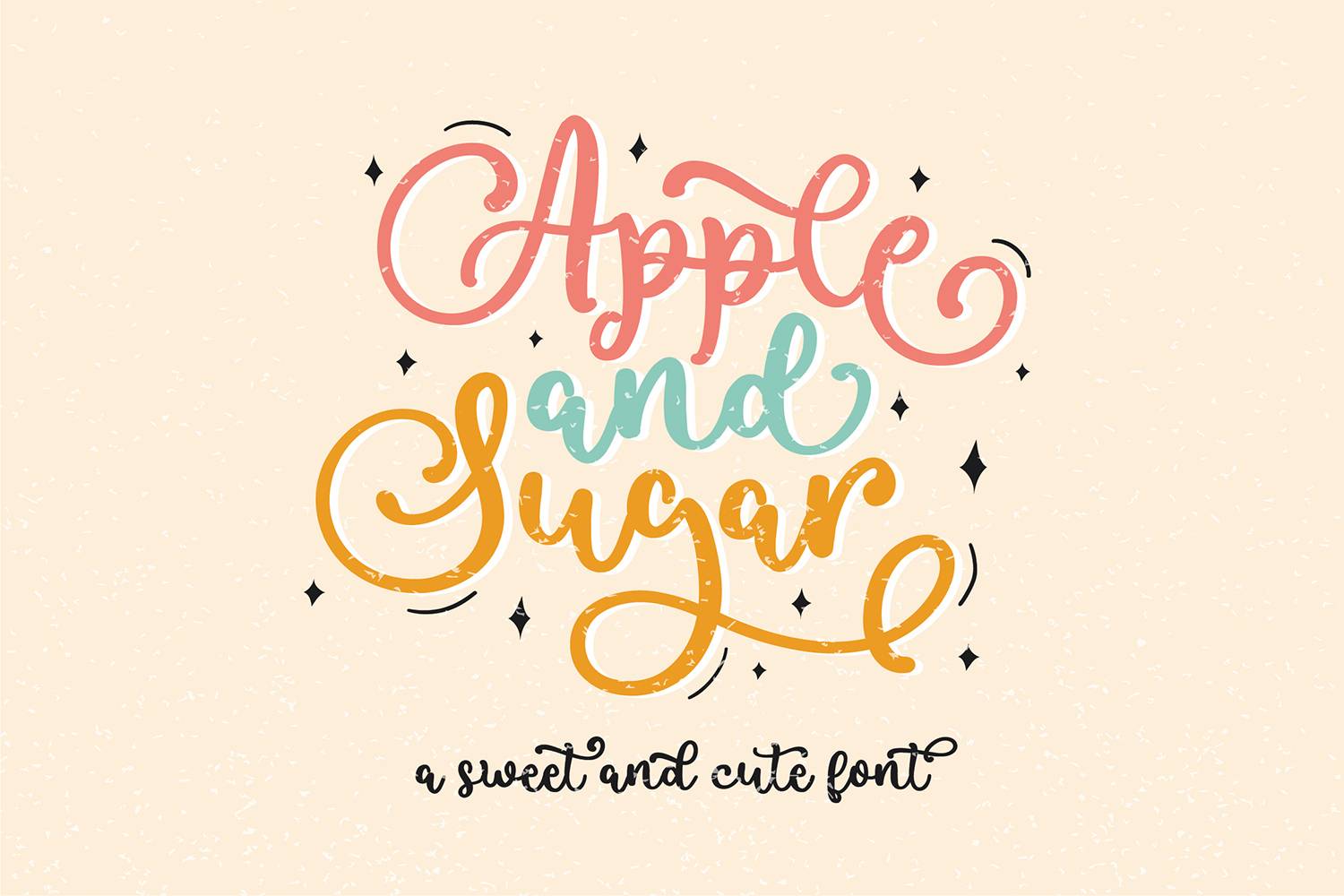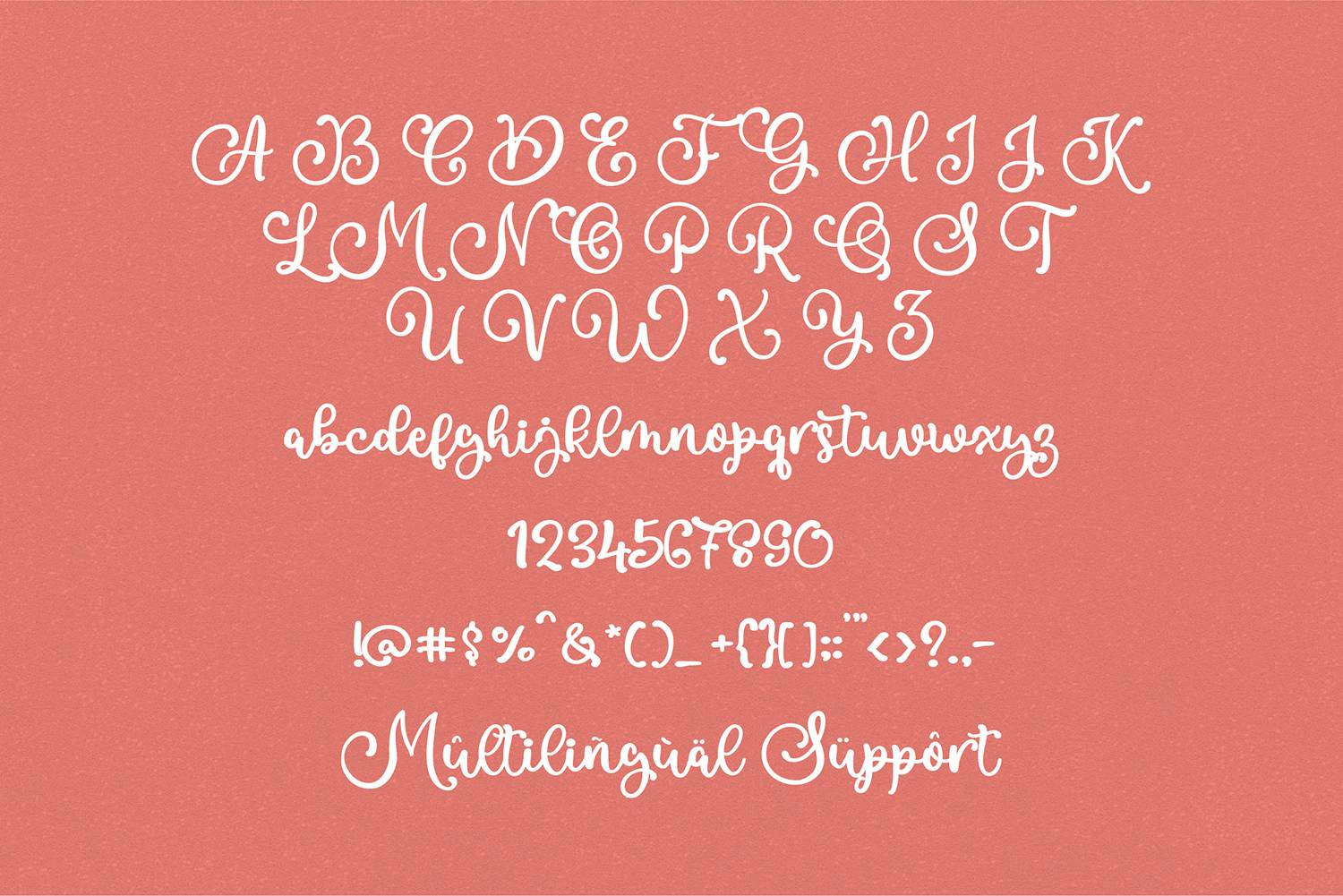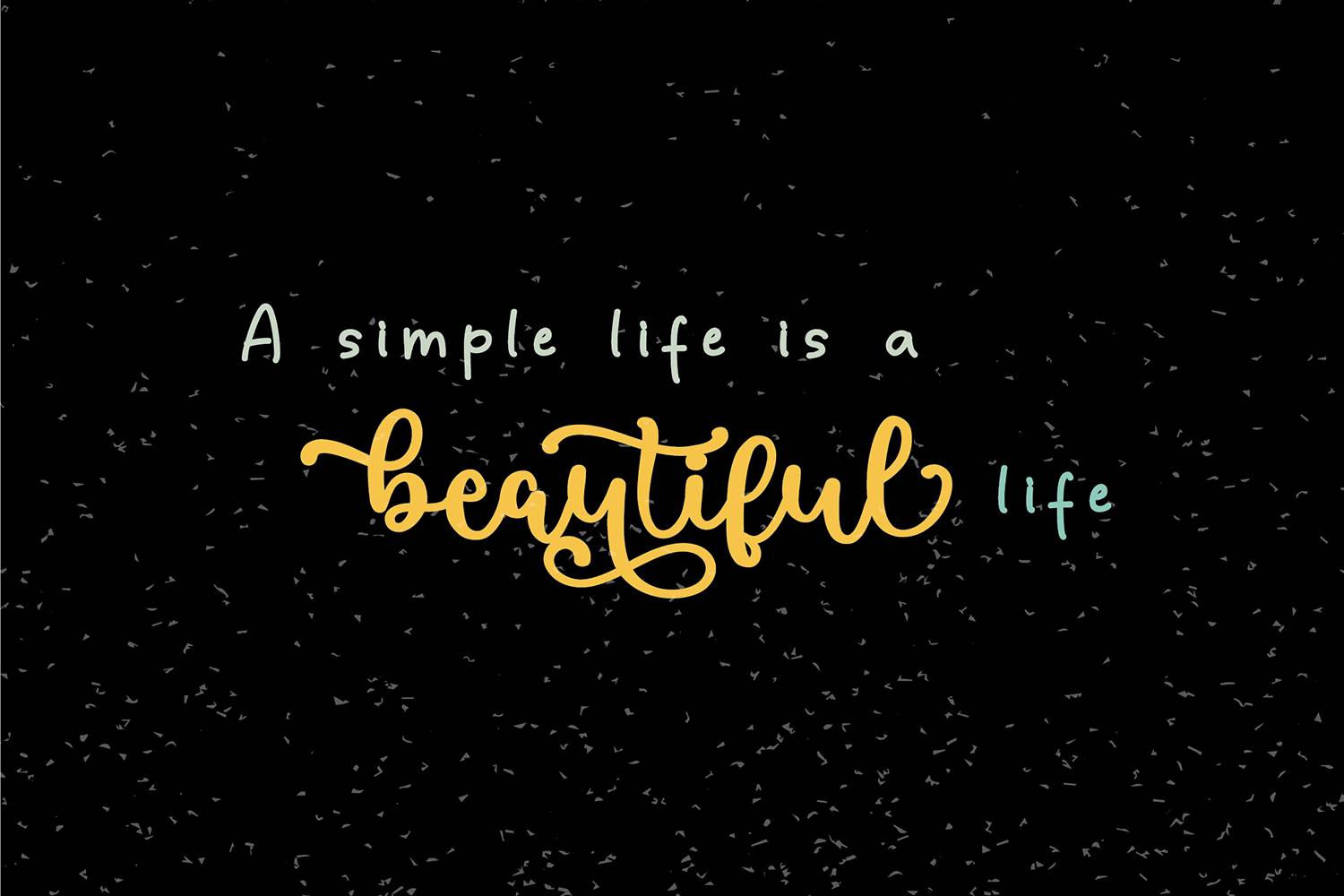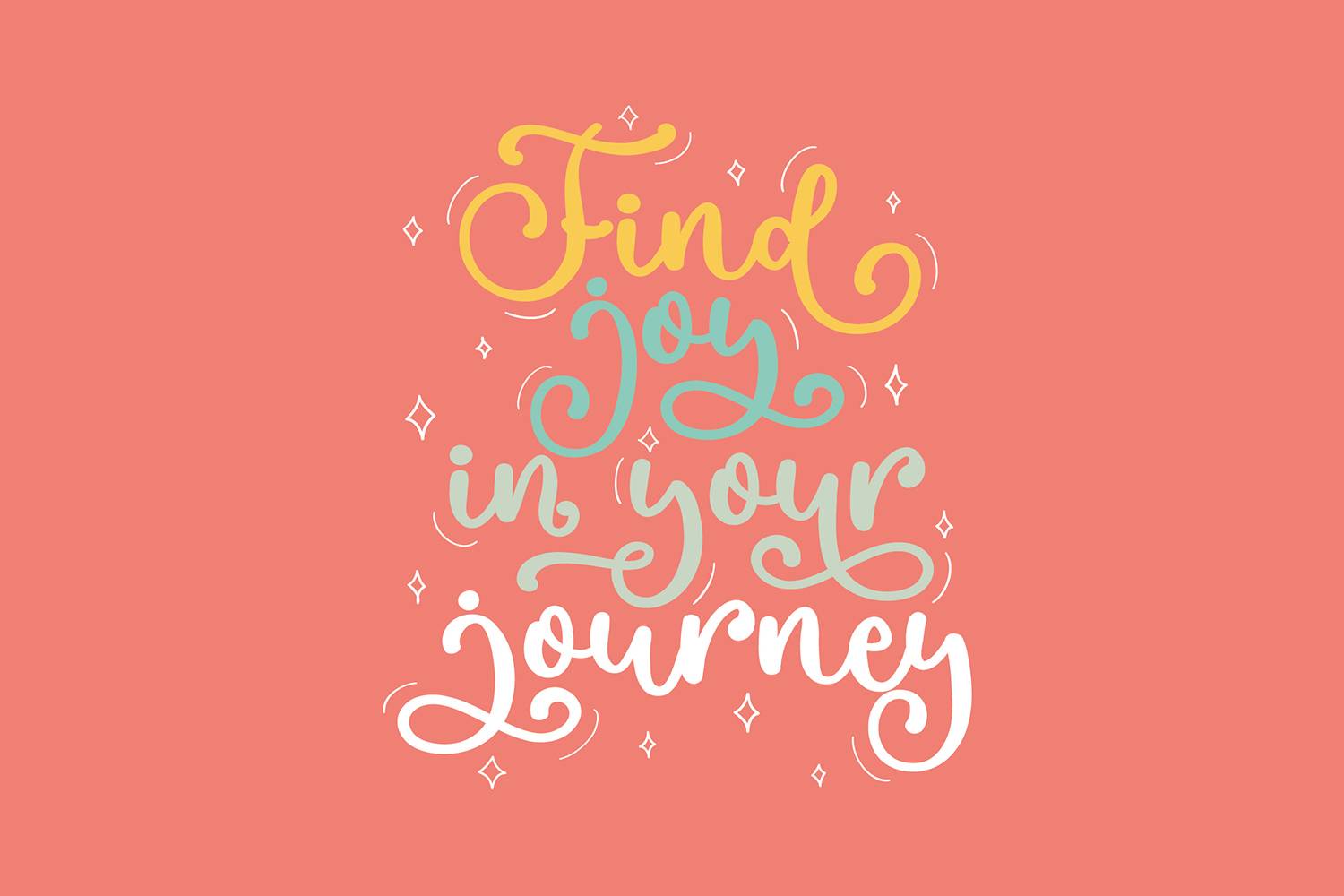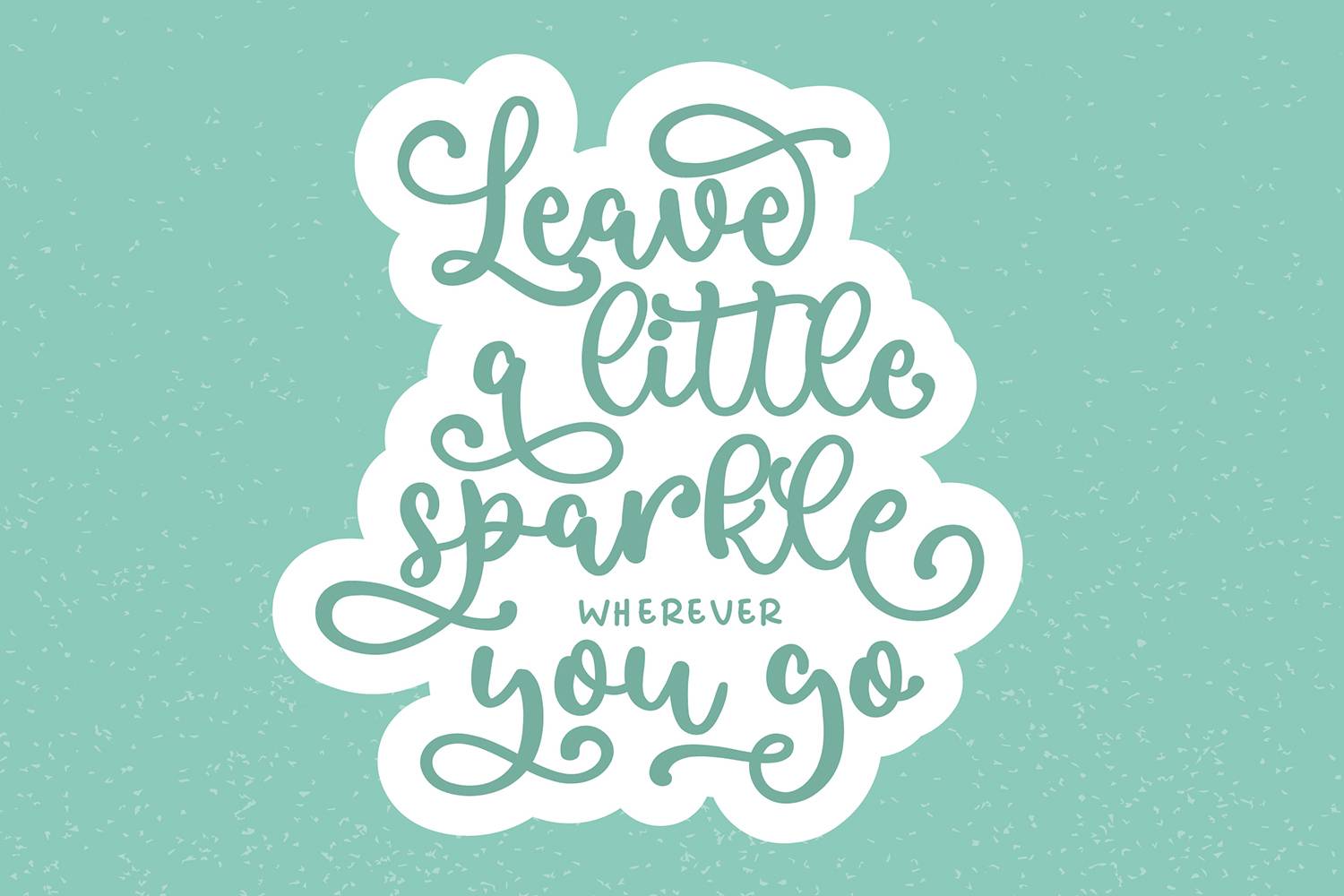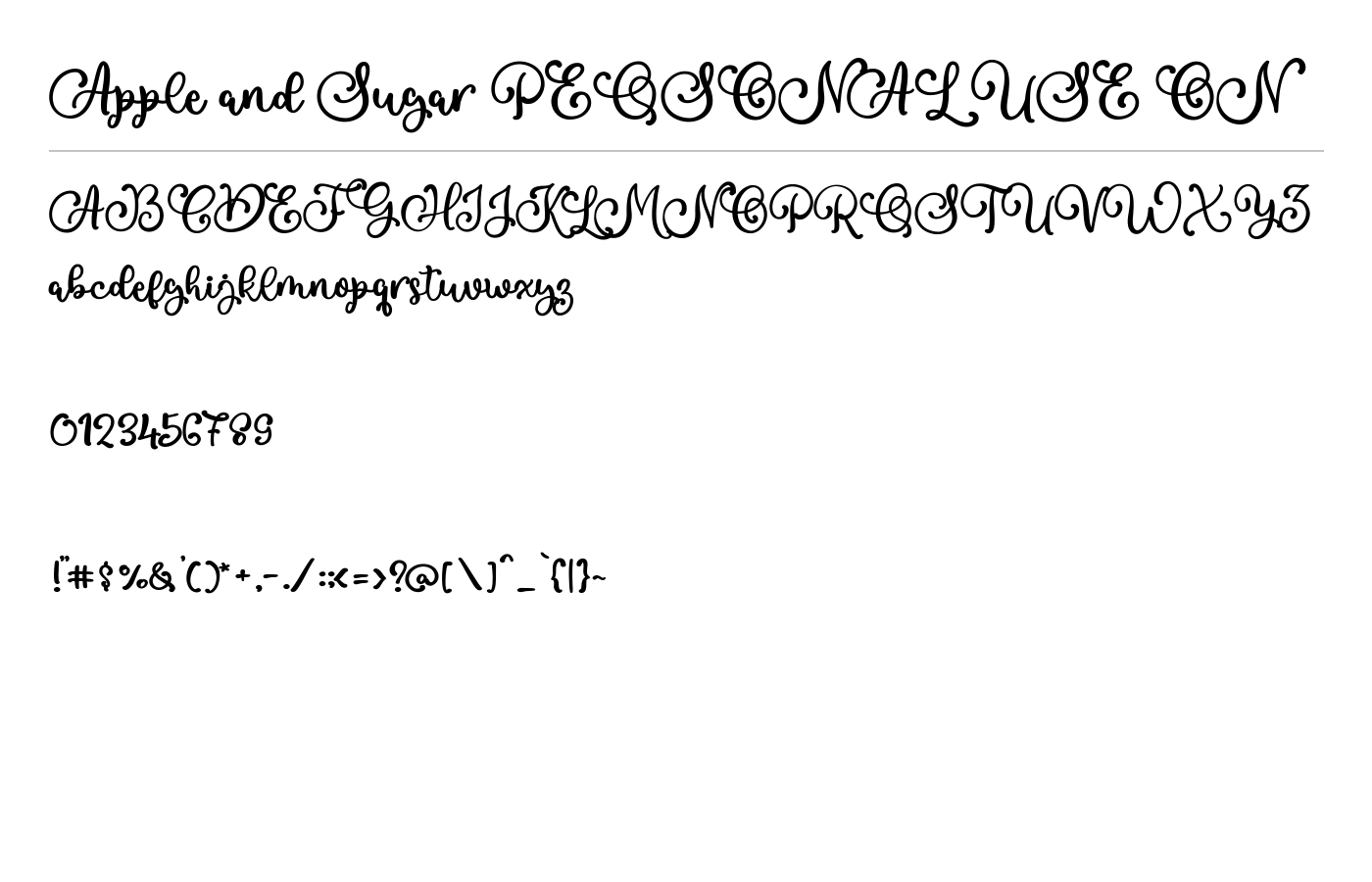
Apple and Sugar is a playful, decorative script font featuring elegant swirls and flourishes that give it a whimsical, hand-lettered feel. Its delicate, flowing strokes with moderate contrast make it ideal for feminine, creative, or celebratory designs such as invitations, logos, and branding that want to convey charm and personal touch. This font works best in display settings where its intricate style can shine without compromising readability.
Apple and Sugar Font
About Apple and Sugar Font